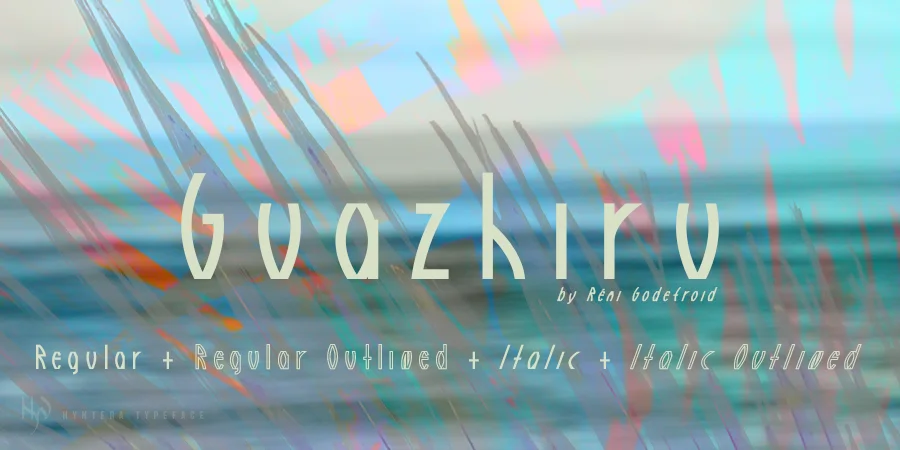
Guazhiru Font Family
Guazhiru Font Family is perfect for tropical resort branding, rainforest conservation campaigns, exotic travel destinations, eco-tourism marketing, indigenous cultural projects, Amazon-inspired designs, natural wellness centers, adventure expedition materials, jungle-themed entertainment, and authentic South American cultural celebrations.
Guazhiru Font Family is exciting because it authentically captures the mystical essence and natural wisdom of Amazon rainforest culture through organic letterforms that evoke ancient traditions and tropical mystique with indigenous authenticity. This spiritually crafted typeface combines traditional South American design elements with contemporary functionality, making it perfect for brands that want to communicate environmental consciousness, cultural respect, and connection to nature's sacred wisdom.
The Guazhiru Font Family includes organic weights with rainforest-inspired styling, featuring indigenous character elements and natural decorative flourishes. The font showcases traditional design details, jungle-influenced proportions, and authentic South American cultural characteristics that reflect the artistic heritage of Amazon communities and indigenous traditions.
The indigenous sophistication of Guazhiru Font Family makes it an essential tool for eco-tourism companies, environmental organizations, and cultural institutions that need typography capable of communicating rainforest wisdom and Amazon authenticity. The font's spiritual character helps establish connections with audiences seeking meaningful environmental experiences and authentic cultural understanding of indigenous traditions.
Conservation groups, eco-tourism operators, and cultural centers consistently choose Guazhiru Font Family for its ability to convey Amazon mystique and indigenous cultural sophistication through typography. The font excels in applications where establishing environmental credibility and cultural respect are essential to brand positioning, making it particularly effective for sustainable tourism, conservation efforts, and cultural education targeting environmentally conscious audiences.
This font's comprehensive character set includes indigenous-inspired letterforms, natural numerals, rainforest punctuation marks, and cultural symbols that support authentic Amazon typography composition. The careful respect for indigenous design traditions ensures genuine cultural appearance while maintaining contemporary functionality for Guazhiru Font Family Free Download across all environmental and cultural design applications.